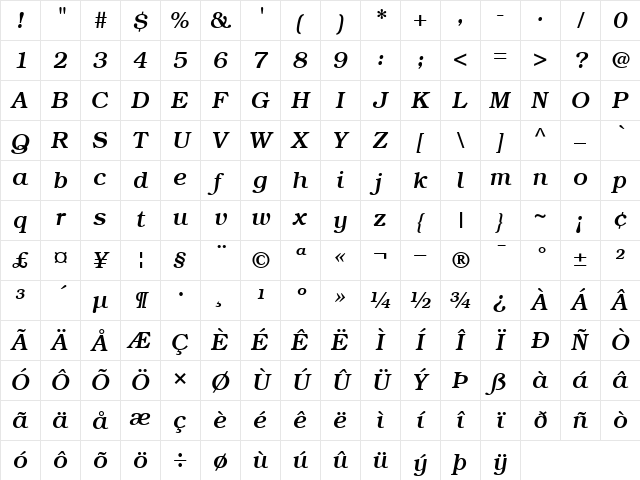
Complete ITCmanMedium-Book BookItalic glyph index. Displaying only characters natively supported by ITCmanMedium-Book BookItalic font.
ITCmanMedium-Book is a composed and adaptable typeface that performs quietly and consistently across a wide range of design contexts. The slanted form adds forward momentum and visual energy.
Pro Tip: Use ITCmanMedium-Book for emphasis, pull quotes, and subheadings where its slanted energy can add rhythm to the layout.